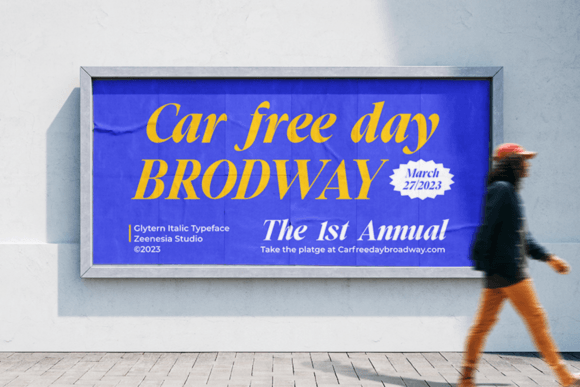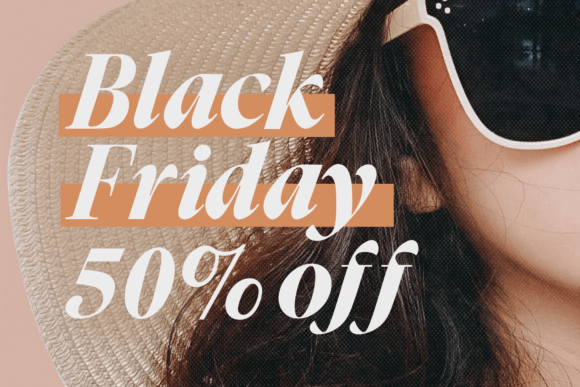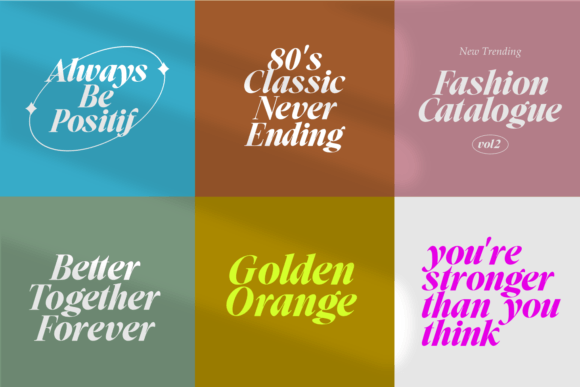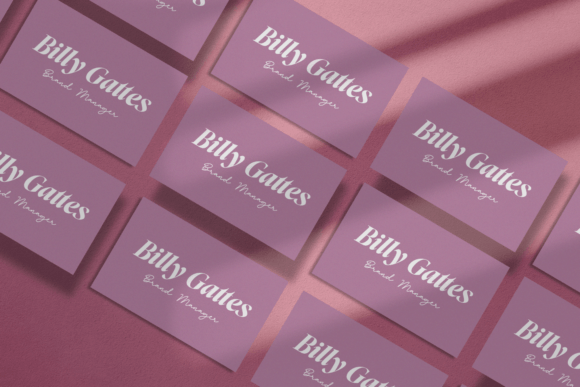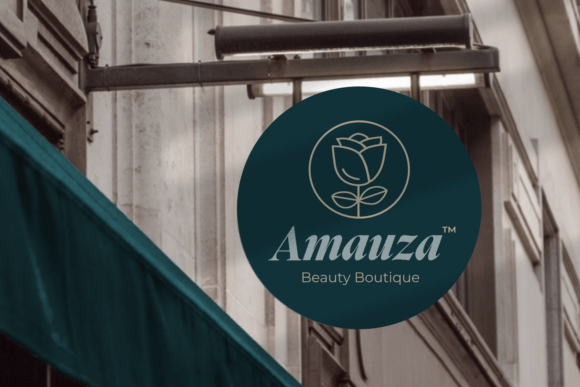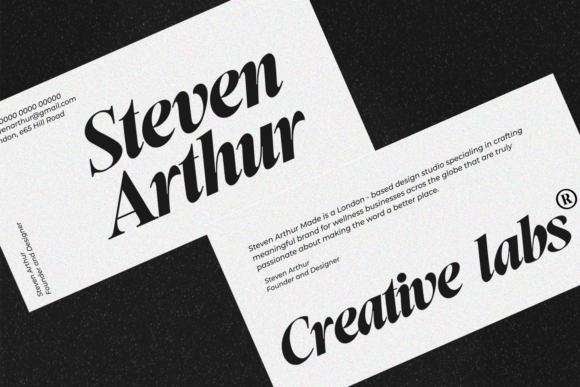
Glytern Font: Elevate Your Designs with Modern Italic Serif Elegance
In the world of typography, a font can make all the difference in the aesthetic and effectiveness of a design project. For designers and crafters looking for a modern, versatile, and elegant solution, Glytern font emerges as an exceptional choice. Glytern is a modern italic serif font designed to bring a touch of sophistication and style to a wide range of projects, from editorial and logo design to web fonts, branding, product packaging, and magazine layouts. Its unique blend of contemporary flair and classic serif elements makes it an invaluable asset for anyone aiming to elevate their visual creations.
The Versatility of Glytern Font
One of the standout features of Glytern is its incredible versatility. This font is not limited to a specific use case; rather, it is designed to excel in various applications. Whether you’re working on a high-end editorial project, crafting a distinctive logo, designing a website, creating a brand identity, or laying out a magazine, Glytern adapts seamlessly. Its modern italic serif design ensures that it stands out in large formats while maintaining readability and elegance in smaller sizes.
Glytern in Editorial Projects
For editorial projects, the right font can enhance the narrative and draw readers in. Glytern’s modern and sophisticated look makes it perfect for magazine articles, book titles, and any written content where style and readability are paramount. Its italic serif design adds a dynamic touch to the text, making it more engaging for readers. Whether you’re aiming for a luxurious feel or a more approachable tone, Glytern can be tailored to fit your editorial vision.
Logo Design and Branding with Glytern
In logo design and branding, a font can be a crucial element in establishing a brand’s identity. Glytern, with its unique and stylish appearance, offers a distinctive edge. Its modern italic serif design can help a brand stand out in a crowded market, conveying a sense of elegance, professionalism, and forward-thinking. Whether you’re creating a brand identity for a startup or rebranding an established company, Glytern provides a versatile and impactful solution.
Glytern as a Web Font
The digital landscape demands fonts that are not only visually appealing but also highly legible across various devices and screen sizes. Glytern excels in this area, offering a crisp and clear reading experience on digital platforms. Its design ensures that it remains stylish and legible, whether used for website headers, blog posts, or e-commerce product descriptions. For web designers looking to add a touch of sophistication to their digital projects, Glytern is an excellent choice.
Product Packaging and Magazine Layouts
Beyond digital and editorial applications, Glytern also shines in product packaging and magazine layouts. Its ability to command attention while maintaining elegance makes it ideal for product labels, packaging, and promotional materials. In magazine layouts, Glytern can be used to create visually appealing headlines, pull quotes, and body text, adding a cohesive and stylish look to the publication.
Stylish Text Overlay for Background Images
Another creative use of Glytern is as a stylish text overlay for background images. Its modern italic serif design provides a beautiful contrast to images, making the text stand out while adding an artistic touch to any visual composition. This can be particularly effective in digital marketing materials, social media posts, and website banners, where capturing the viewer’s attention is crucial.
| Author | zeenesia |
Glytern font is a powerful tool for designers and crafters seeking to infuse their projects with a modern, elegant, and versatile typographic solution. Its wide range of applications, from editorial projects and logo design to web fonts, branding, product packaging, and beyond, makes it a valuable asset in any creative arsenal. With Glytern, you can elevate your designs, ensure your message stands out, and achieve a sophisticated aesthetic that resonates with your audience. Whether you’re a seasoned designer or a crafting enthusiast, Glytern is poised to transform your visual creations into stunning works of art.